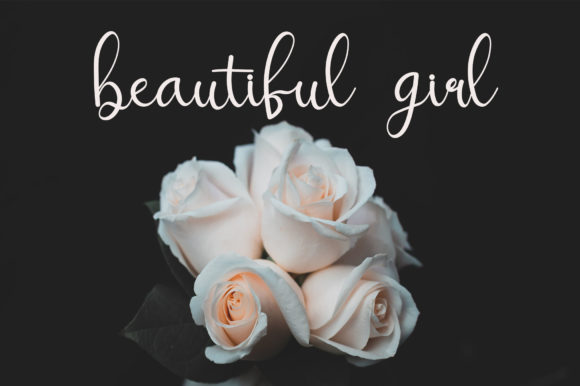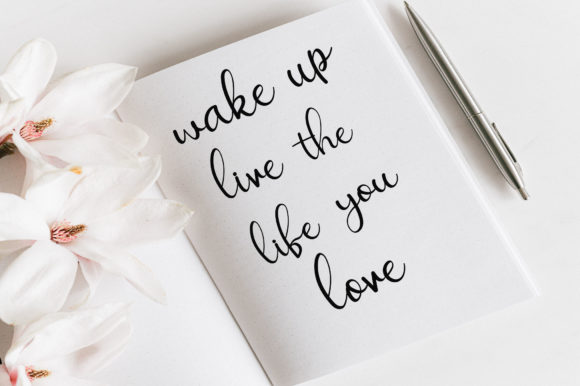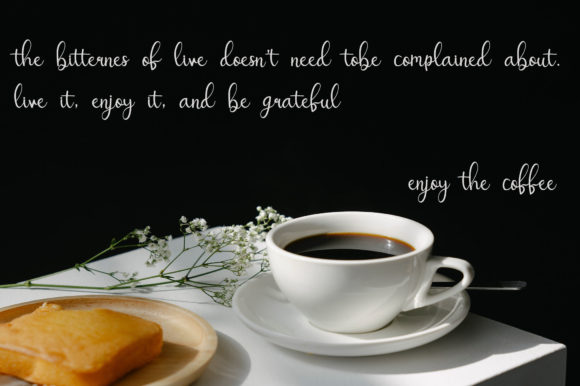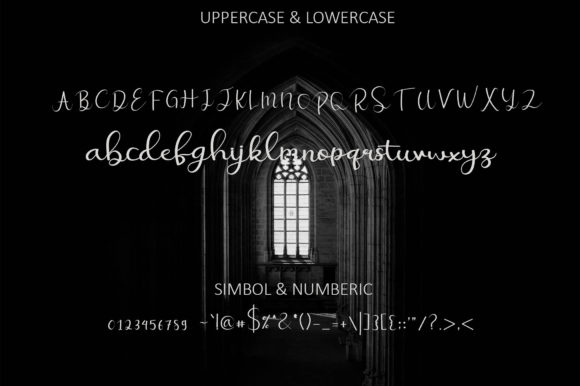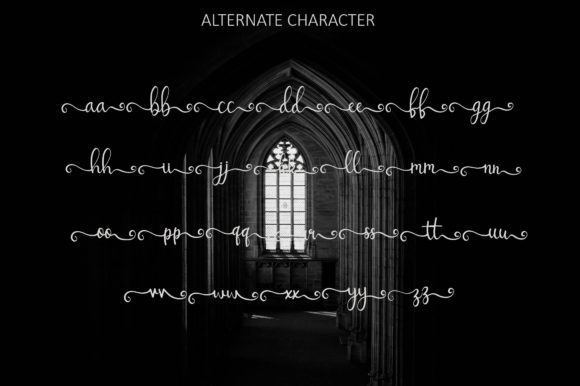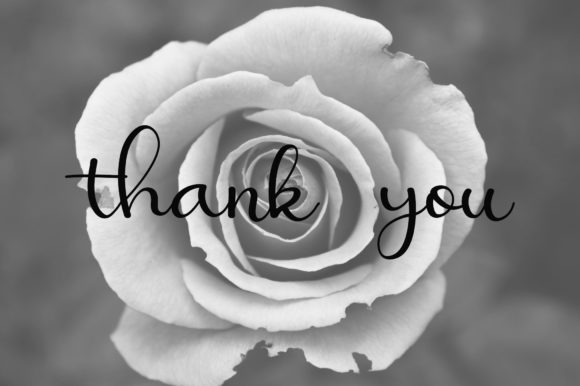
Introduction to Lynelle Font
Lynelle is a beautiful and light handwritten font with a unique feel and a stunning impact.
Lynelle Font offers exceptional quality and versatility, making it a valuable addition to your design toolkit. Whether you’re creating for personal projects or commercial use, Lynelle Font delivers professional results.